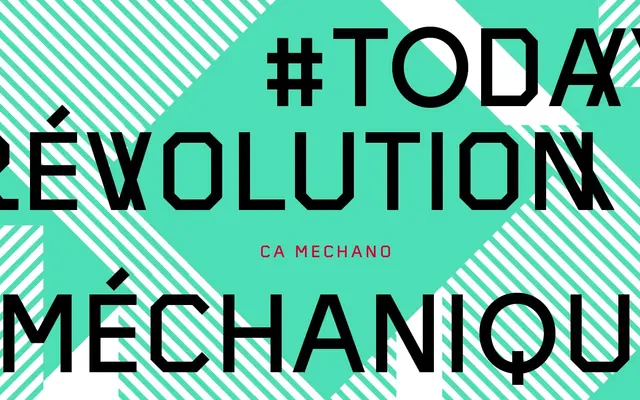
CA Mechano
Cape Arcona · Stefan Claudius
An all-caps mechanical display typeface in three widths, with a disorder stylistic set that introduces controlled chaos into the rigid skeleton.
Built on a single mechanical skeleton, the family spans Regular, Condensed and Wide cuts, giving it range across headlines, signage and branding without breaking visual consistency. Two stylistic sets extend its character: one introduces a disruptive disorder mode that scrambles the expected geometry, the other softens things with rounded alternates. Western and Central European encodings are supported, and the glyph set runs to 396 characters.
An all-caps mechanical typeface classified by the foundry as Display; its rigid geometric skeleton, width variants and disorder stylistic set place it firmly in the constructed display category rather than any text serif or sans tradition.